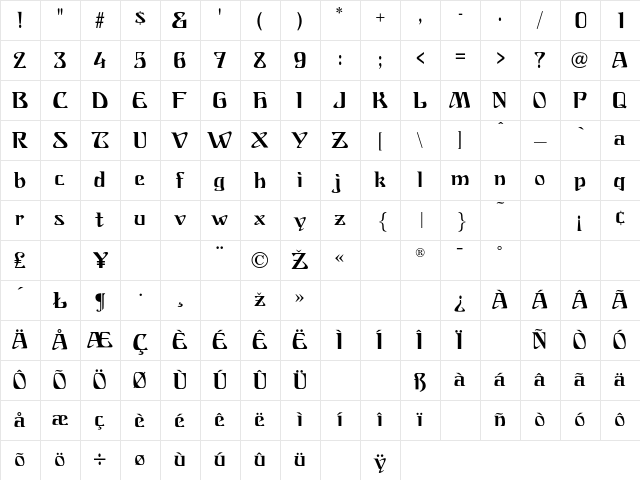
Franconia Regular
Foundry: Digitized by Dan X. Solo. Software Dover Publications, Inc
Design Context for Franconia
Franconia is a composed and adaptable typeface that performs quietly and consistently across a wide range of design contexts.